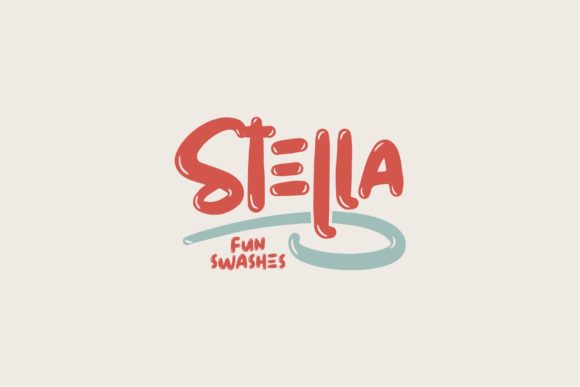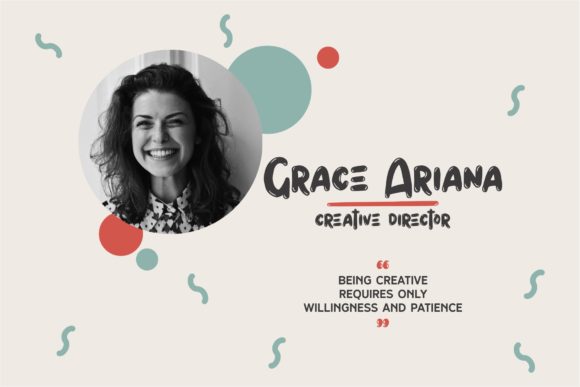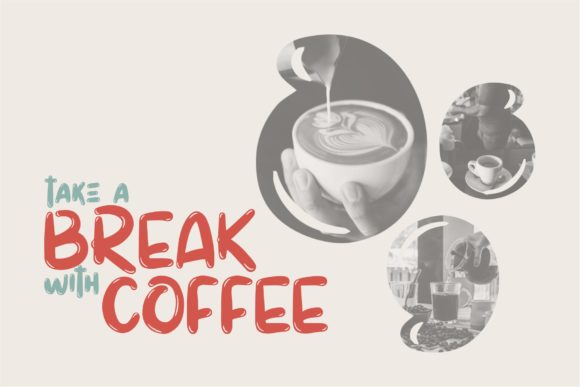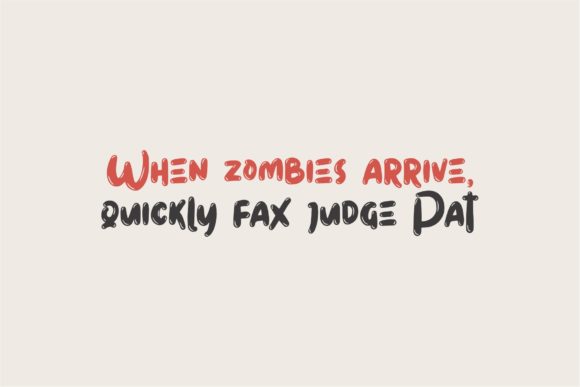
Stella Font: A Bold Display Font with Playful Swashes
About the Stella Font
Get ready to be inspired by Stella Font, a fresh and dynamic typeface for modern creators. The Stella was born from bold and fun style font. It includes many different swashes and is perfect for adding an unique, striking touch to your designs.
It can be used for posters, logos, branding, labels, quotes, headlines, profiles, banners, t-shirt designs, packaging, magazines, brochures, and every other design which needs a playful touch.